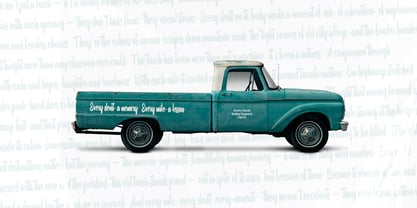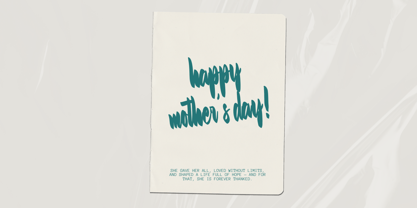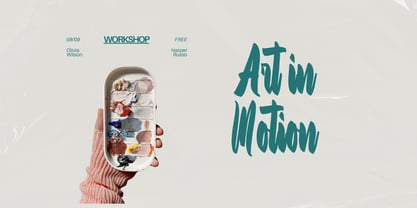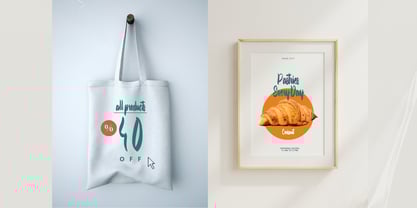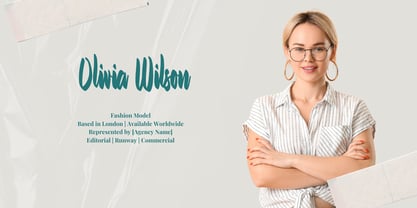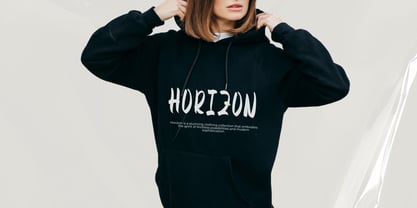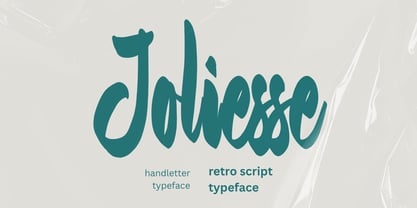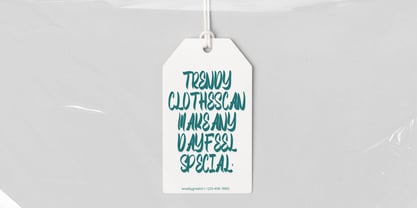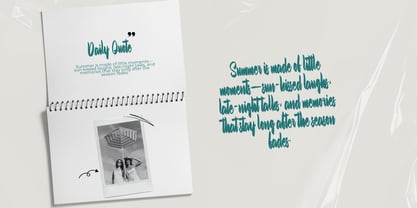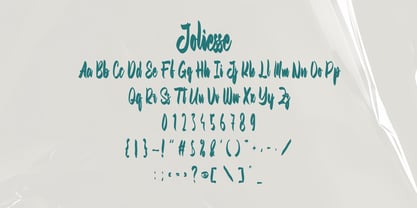
Joliesse
by Gatype
The Joliesse Font Family was designed by khaidir and published by Gatype. Joliesse contains 1 styles. More about this family
Joliesse – Retro Script Typeface
Joliesse is a charming retro script typeface inspired by vintage signage, 70s brush lettering, and playful hand-drawn curves. Its bold strokes and flowing style make it perfect for branding, logos, packaging, posters, and nostalgic designs that need a warm, handcrafted touch.
Whether you're creating a throwback logo, dreamy social media quote, or standout product label — Joliesse brings personality and retro soul into every project.
✨ Let Joliesse revive the past — with a fresh, stylish twist for today.
Designers: khaidir
Foundry: Gatype